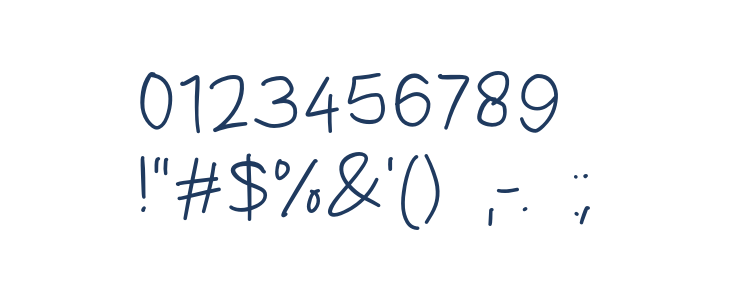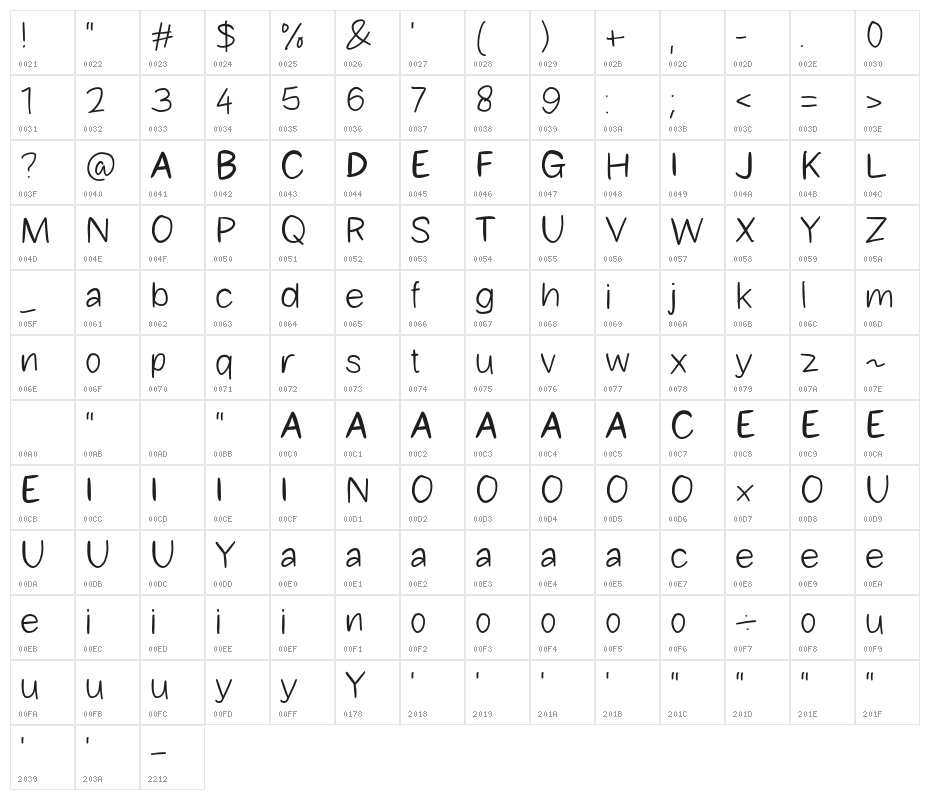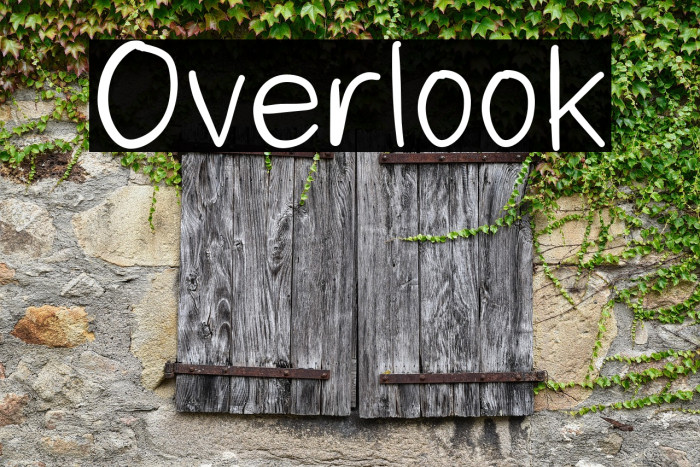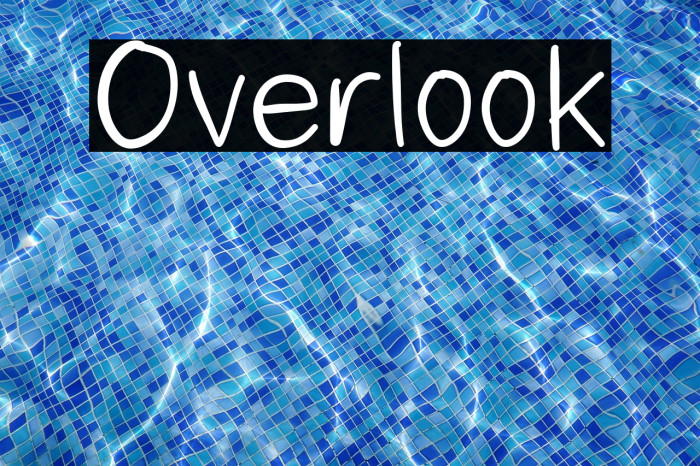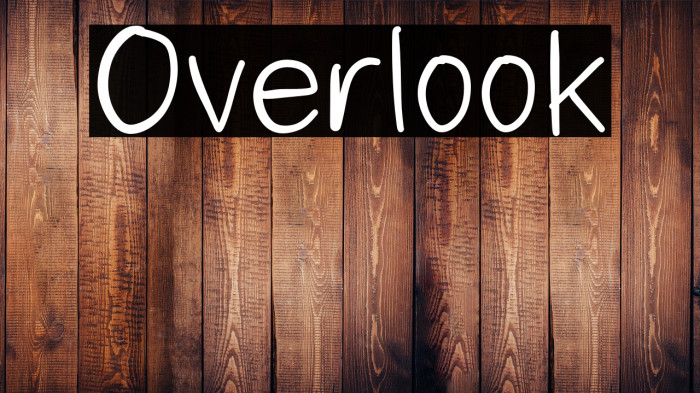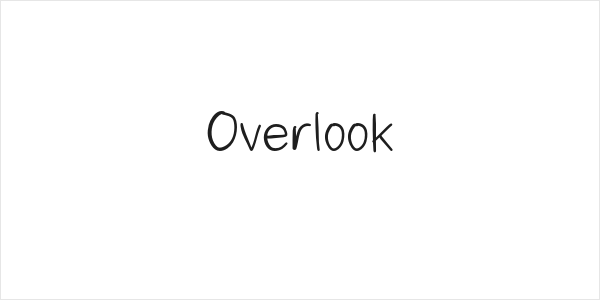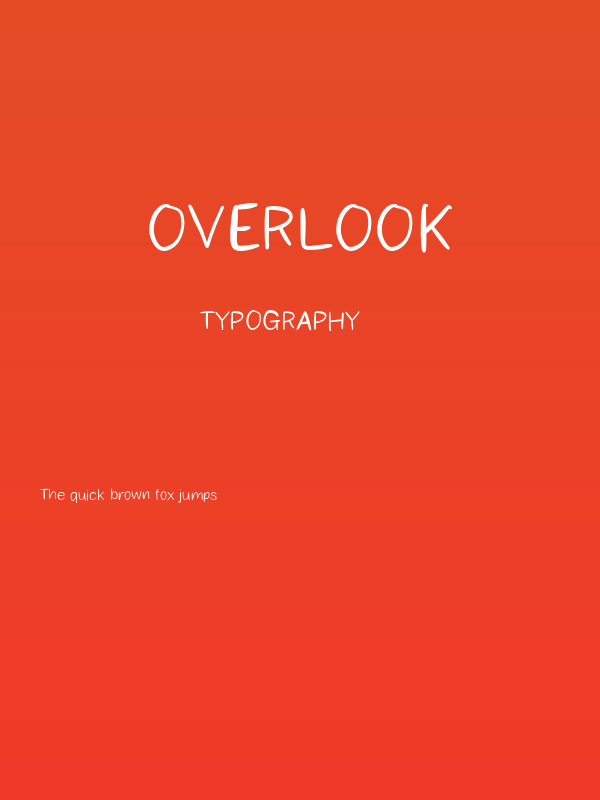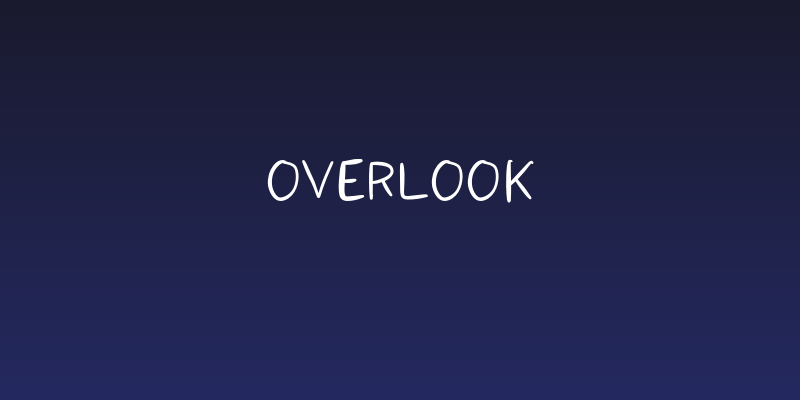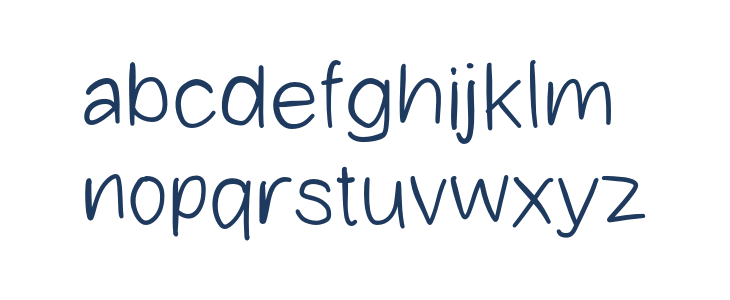
Overlook Font
Overlook Description
This font features a playful and informal handwritten style, characterized by its smooth, rounded edges and slightly irregular letterforms. The uppercase and lowercase letters maintain a consistent flow, giving a casual yet legible appearance. The numerals and special characters follow the same aesthetic, ensuring a cohesive look across all text elements. The font's design is approachable and friendly, making it suitable for projects that require a personal touch. Its simplicity and charm make it versatile for various creative applications.
| Overall Style | Casual |
| Use Case | Headlines, Informal text, Creative projects |
| Proposed Projects | Ideal for greeting cards, children's books, casual branding, and social media graphics. |